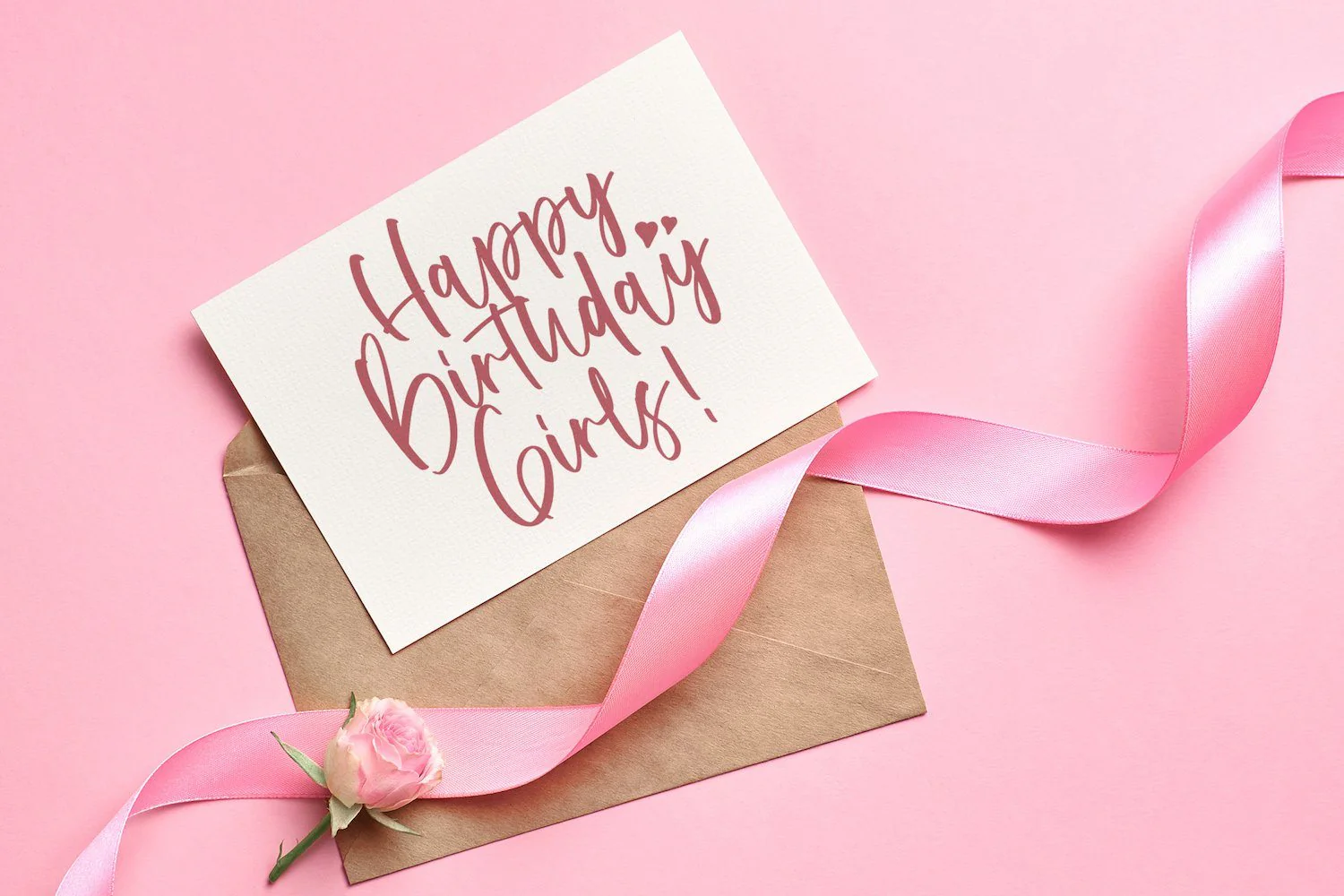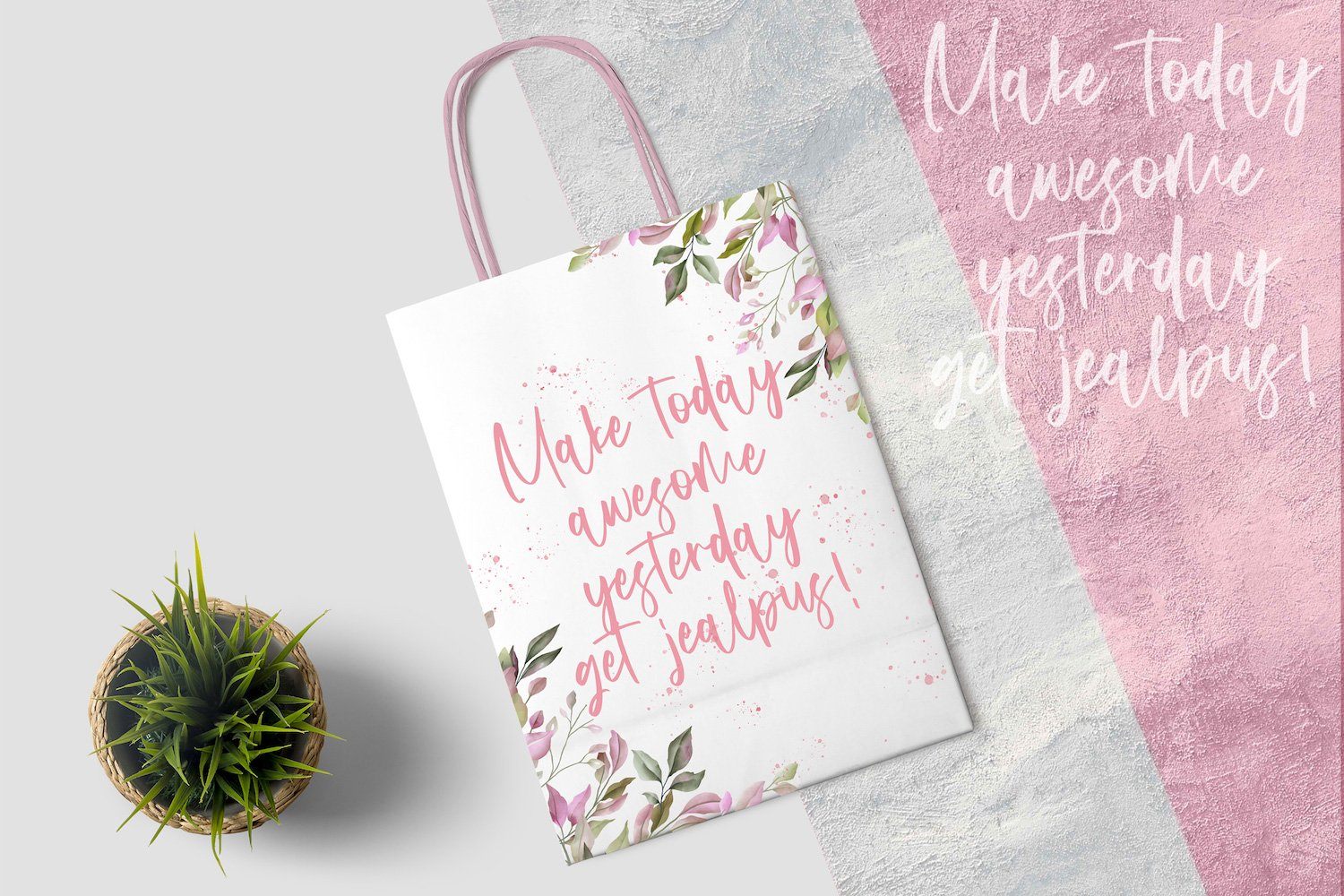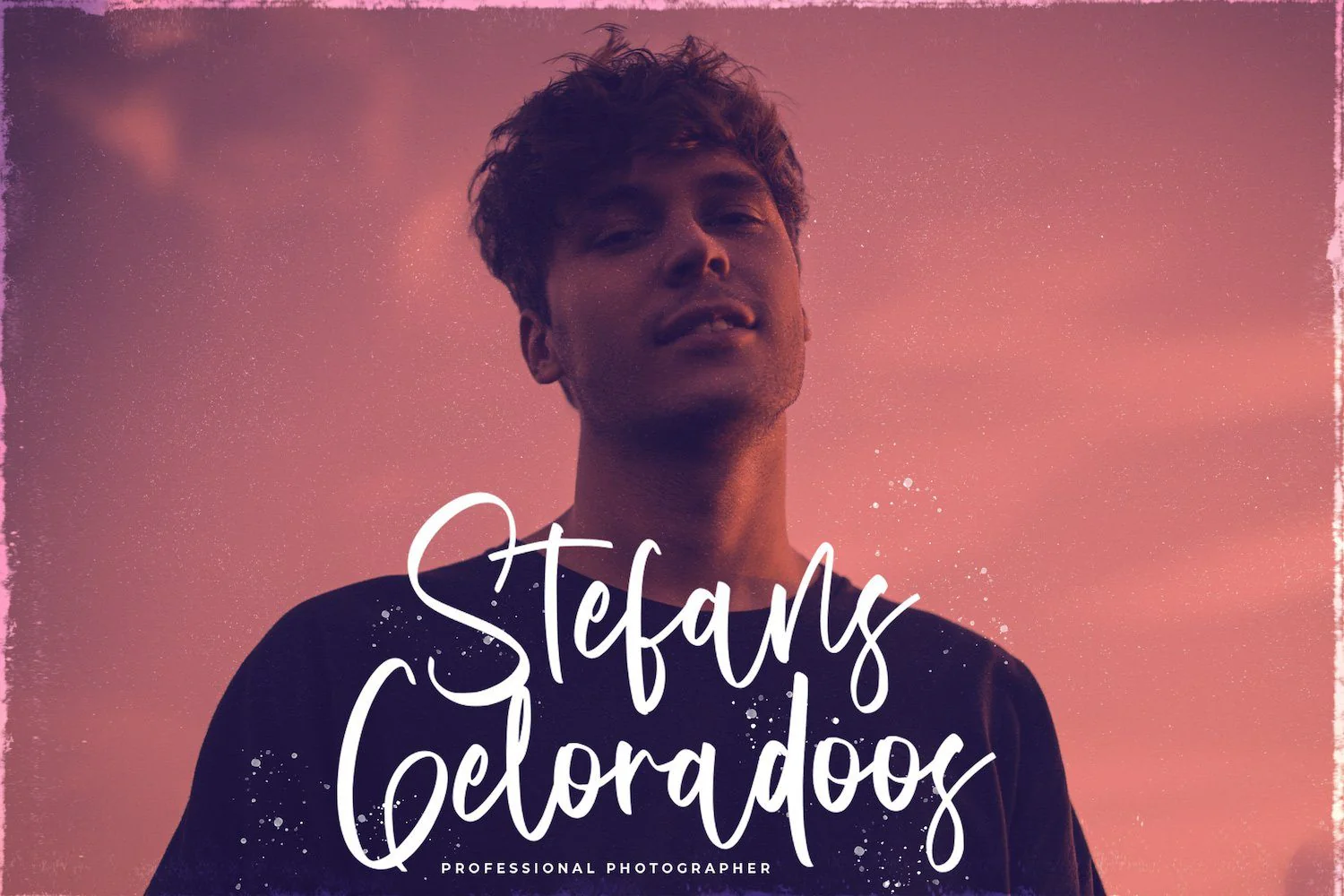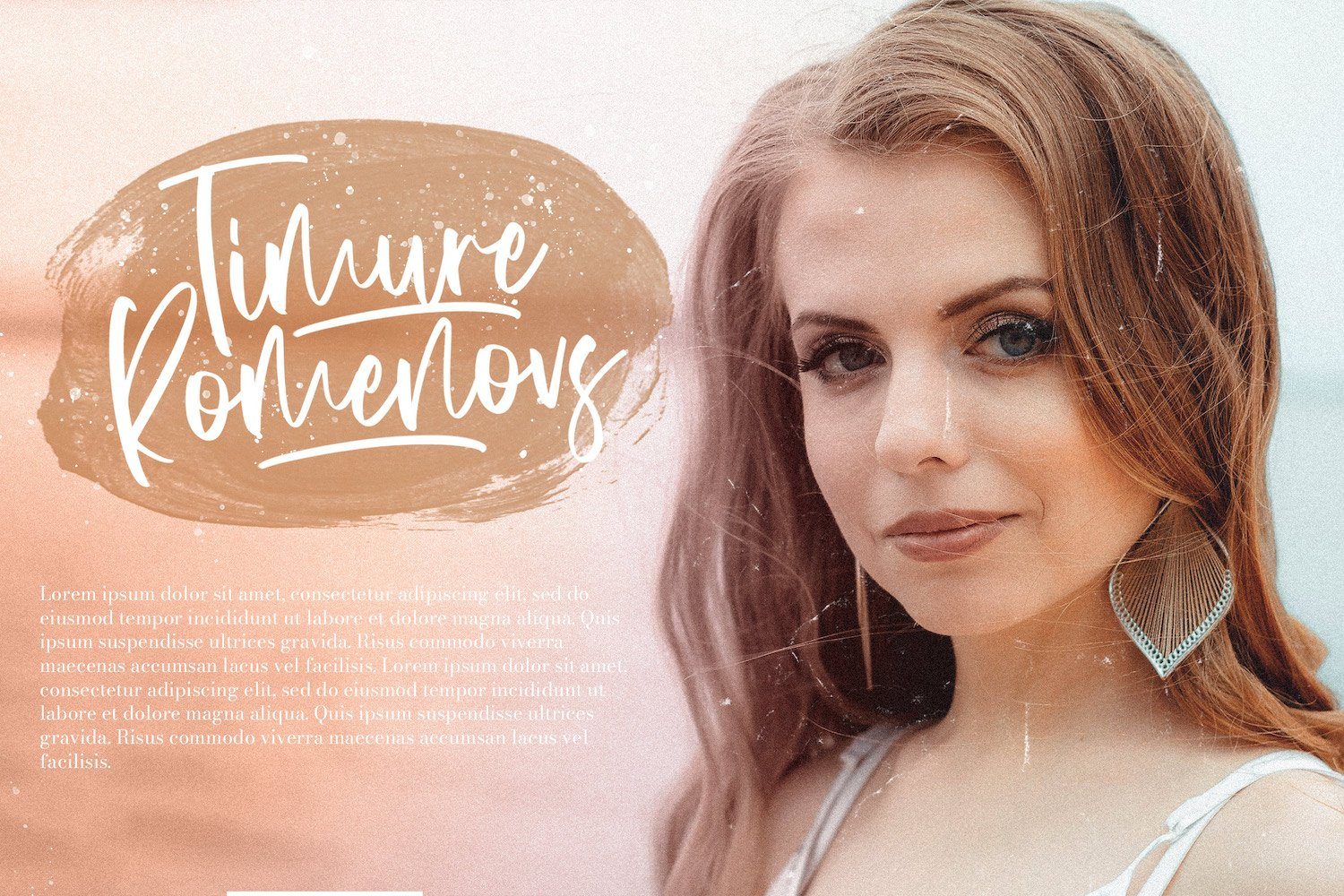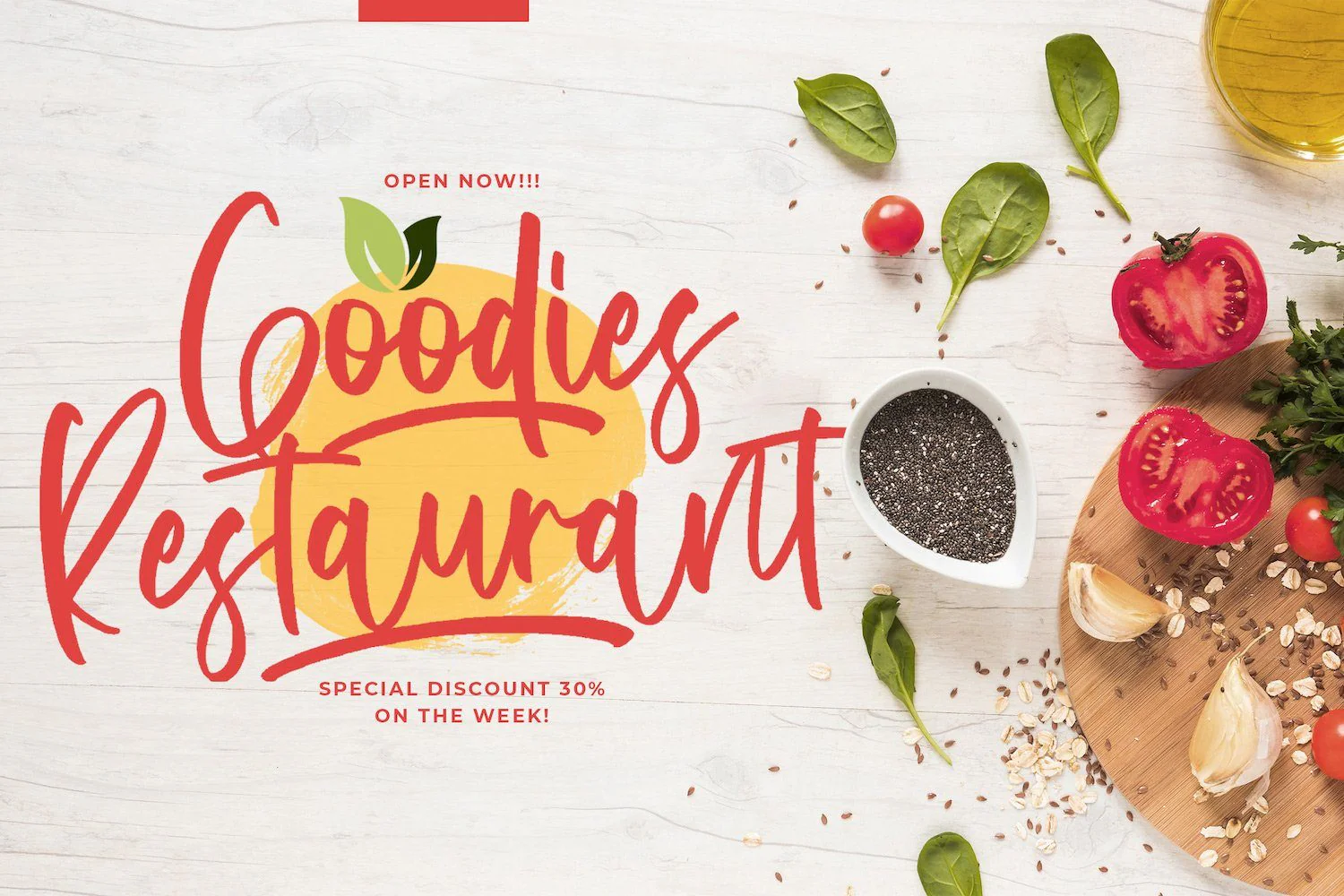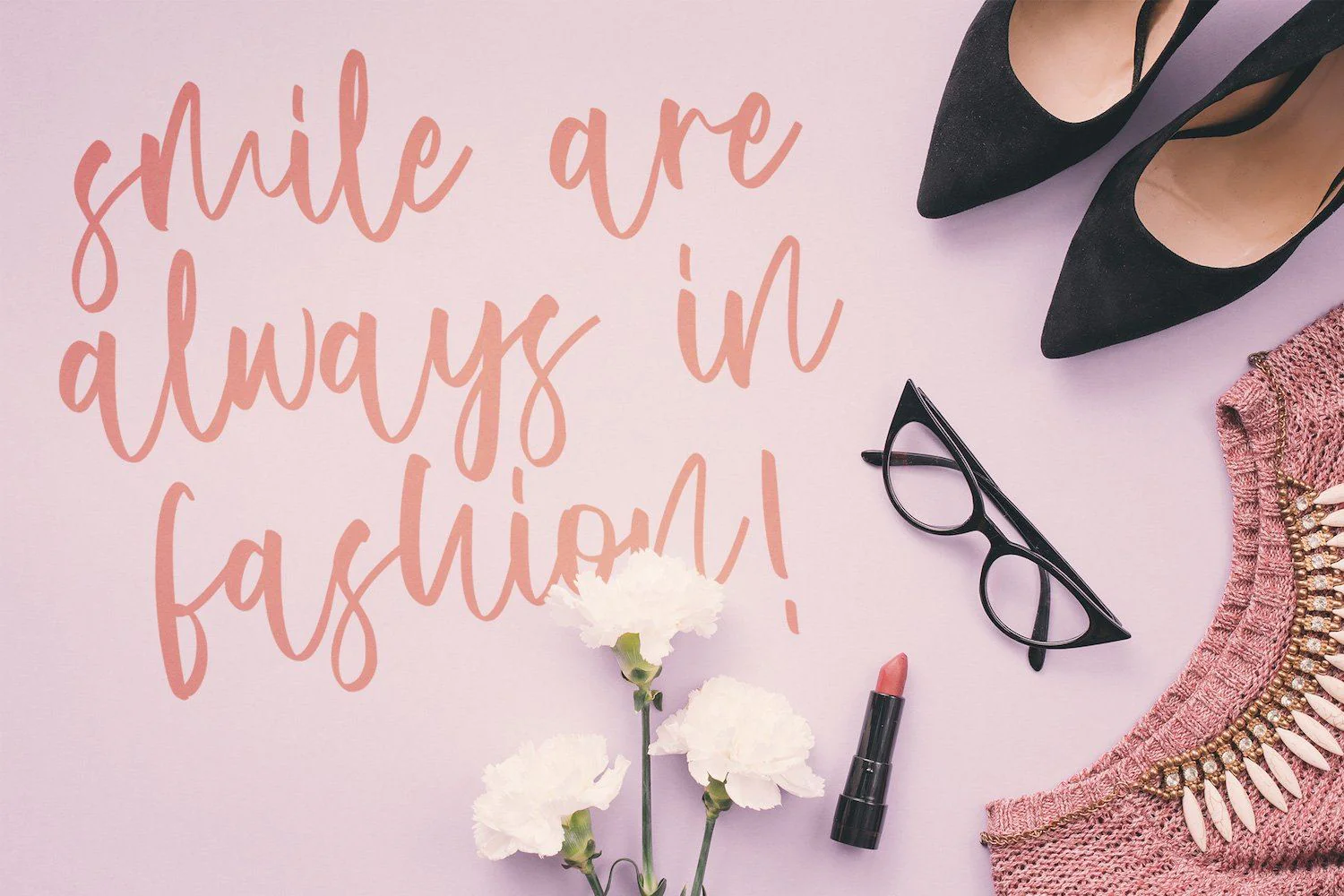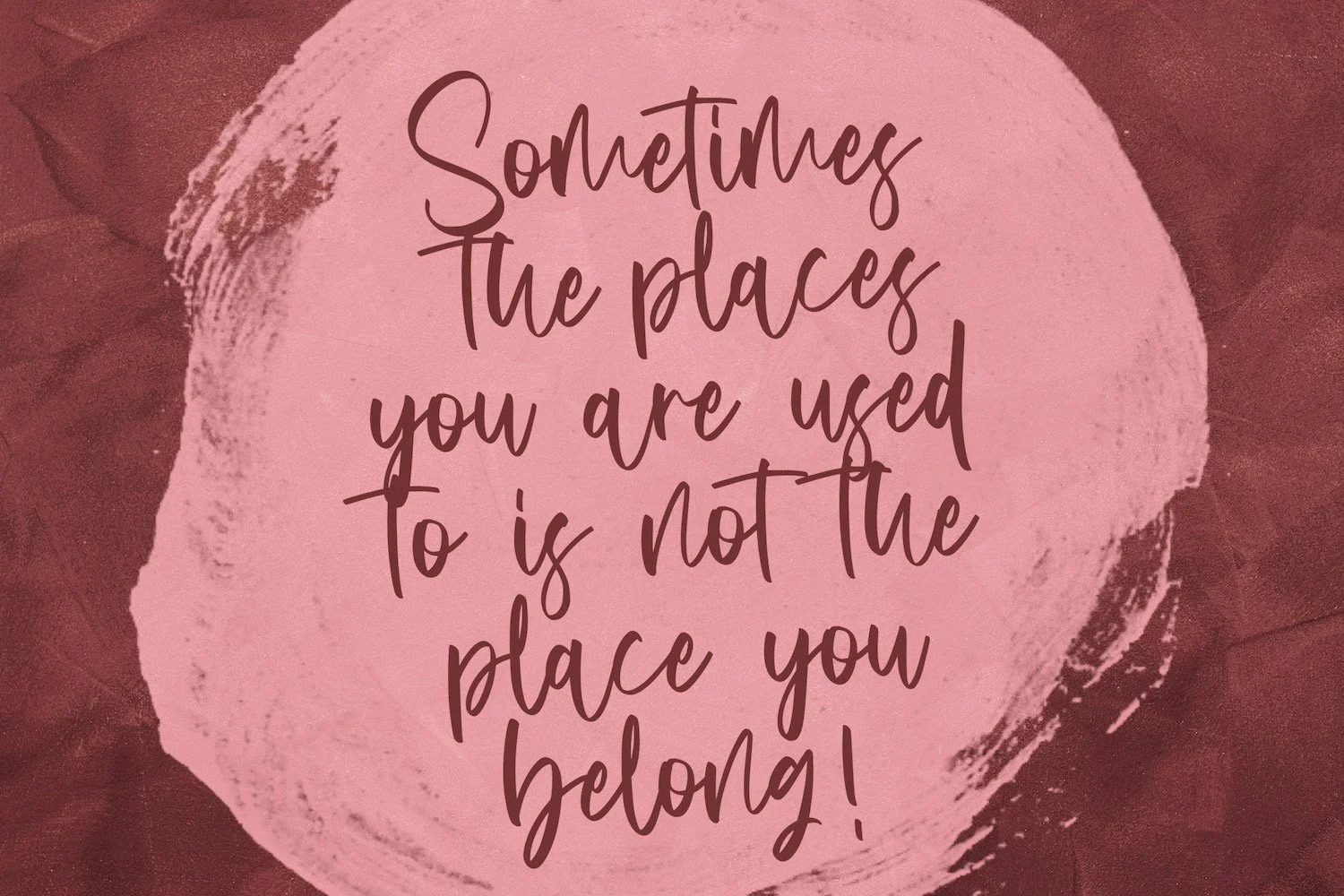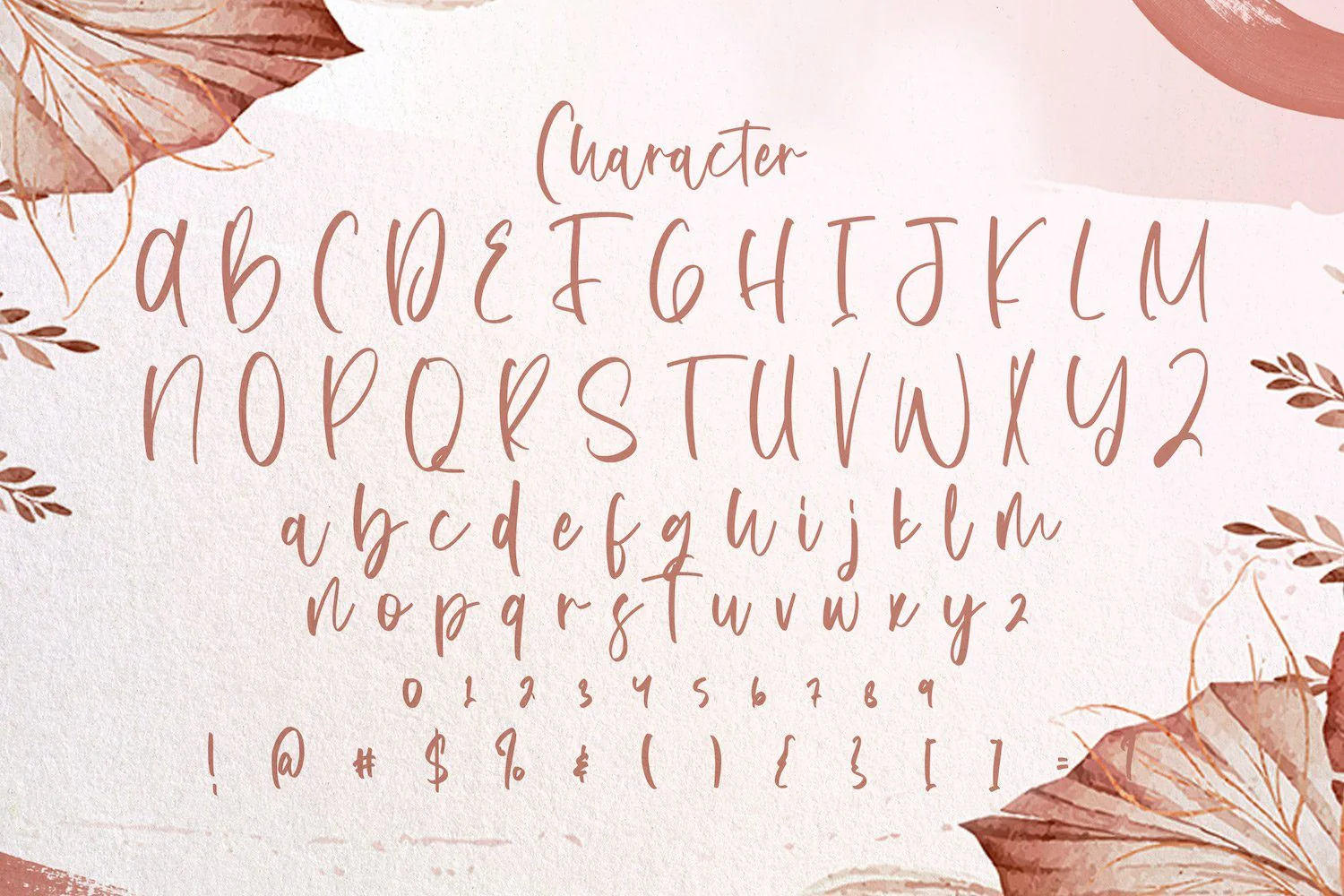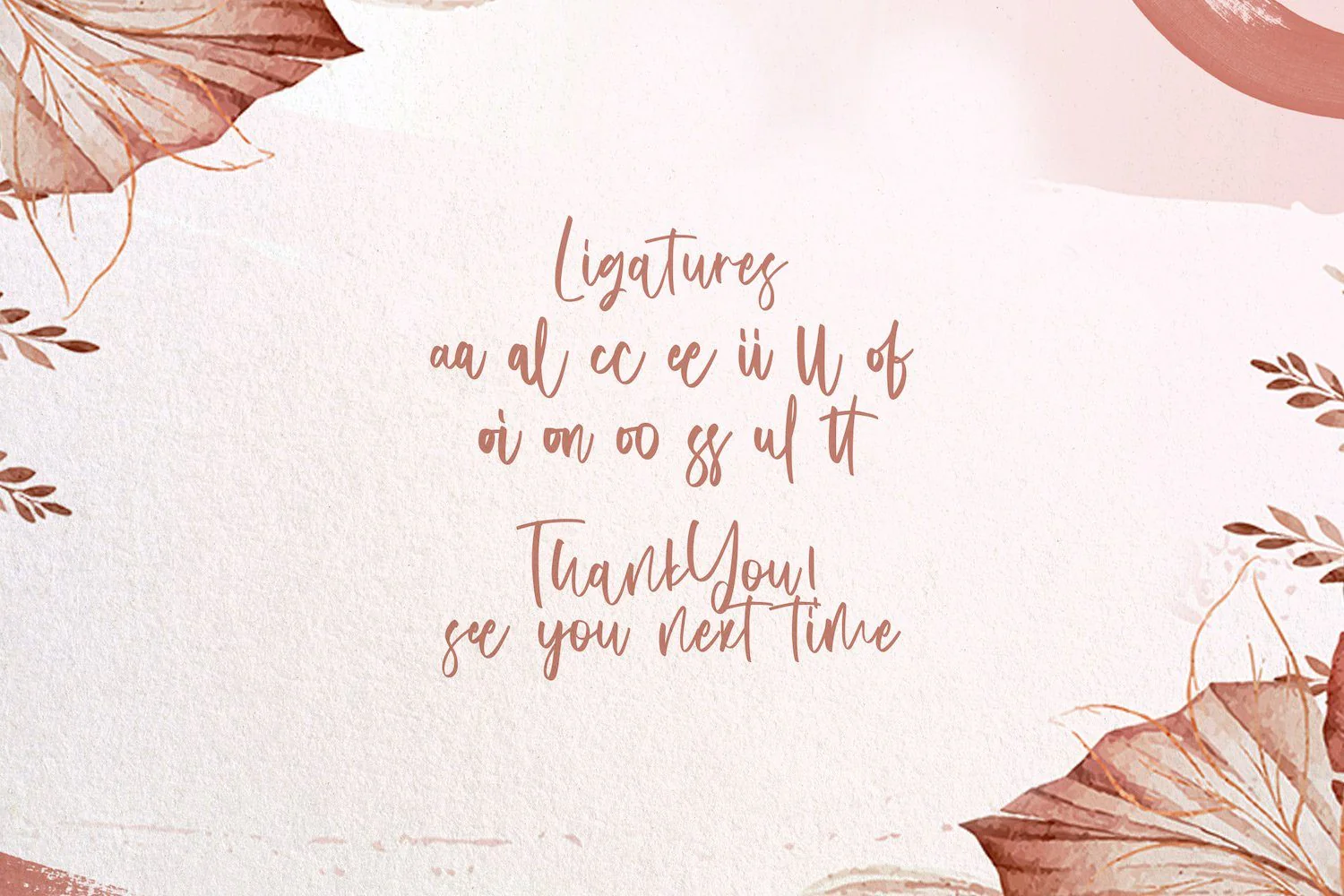
Dutalisa Joily - Handwritten Font
Introducing Dutalisa Joily - Handwritten Font
Dutalisa Joily is a delicate, elegant and flowing handwritten font. It has beautiful and well balanced characters and as a result, it matches a wide pool of designs. Add it to your most creative ideas and notice how it makes them come alive!
Introducing Dutalisa Joily - Handwritten Font
Dutalisa Joily is a delicate, elegant and flowing handwritten font. It has beautiful and well balanced characters and as a result, it matches a wide pool of designs. Add it to your most creative ideas and notice how it makes them come alive!